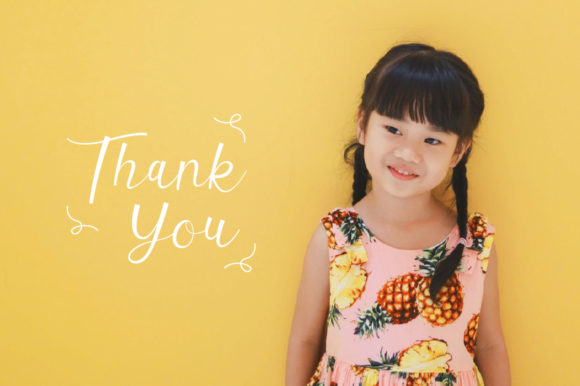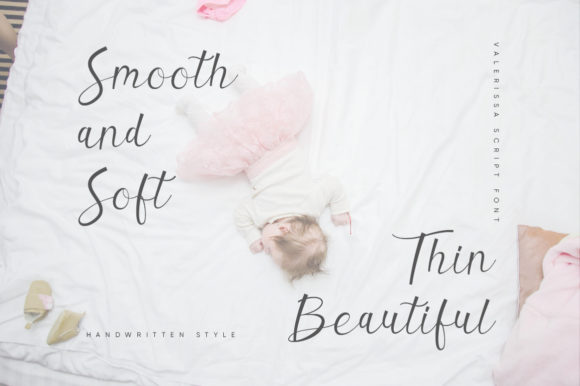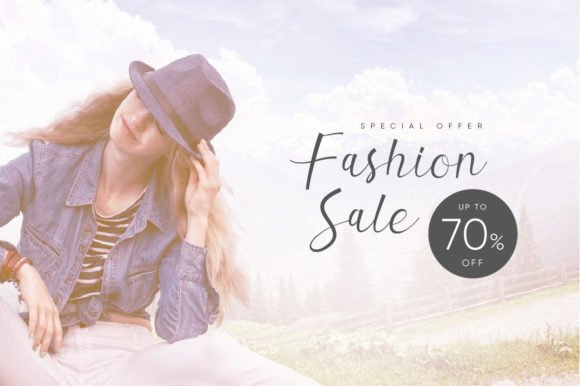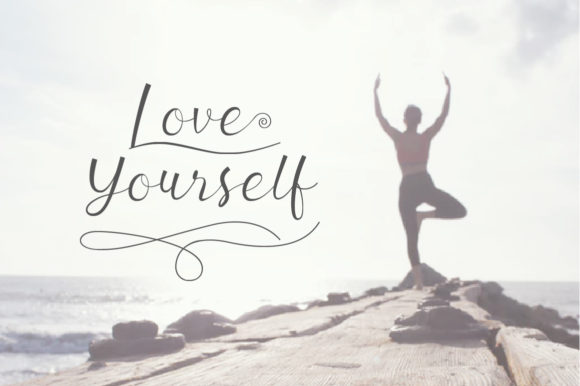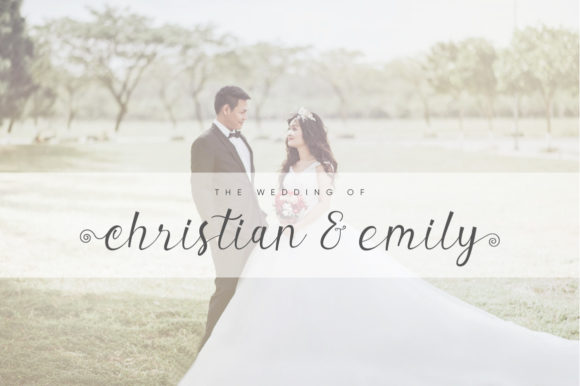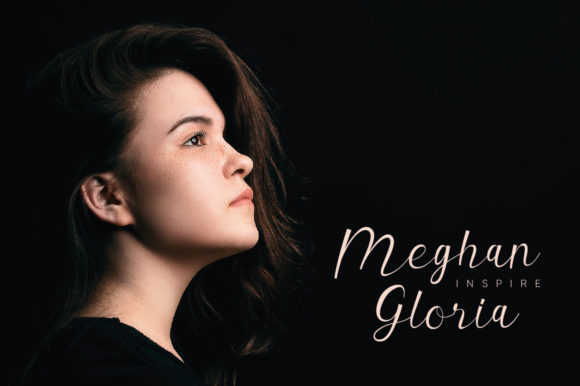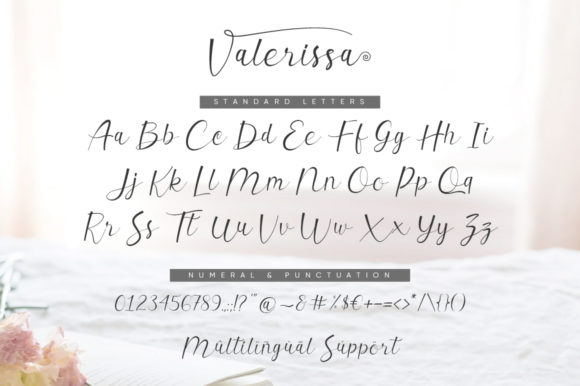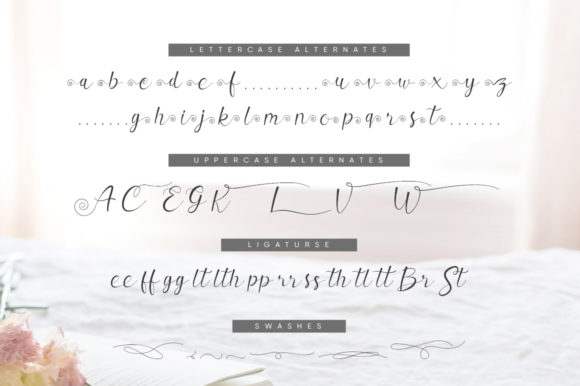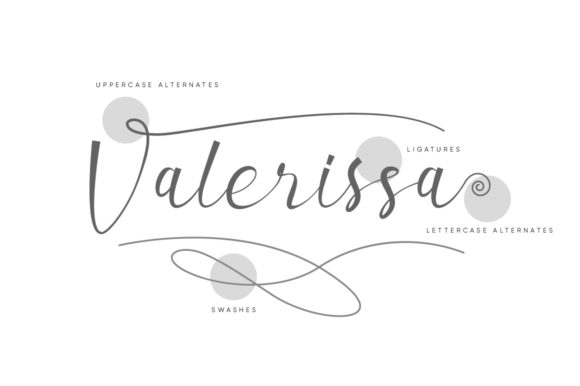
Valerissa Script Font
About Valerissa Script Font
The Valerisa is a beautiful calligraphy handwriting script. It has an elegant feel which can be used for various design products such as websites, invitations, posters, mockups, branding cards and more.